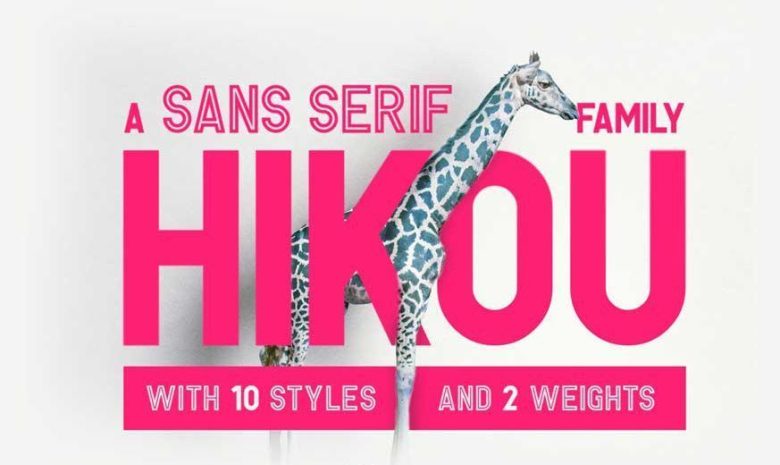
Hikou Regular Font
Glad to introduce to you a new font family. Hikou – Free Font Family is designed and shared by Mehmet Reha Tugcu.
Hikou is a versatile display typeface that’s great for titles and logos. It pairs well with any other font type and works in any size.
Hikou features tons of styles to choose from and two weights. It includes uppercase multilingual letters, numbers and punctuation.